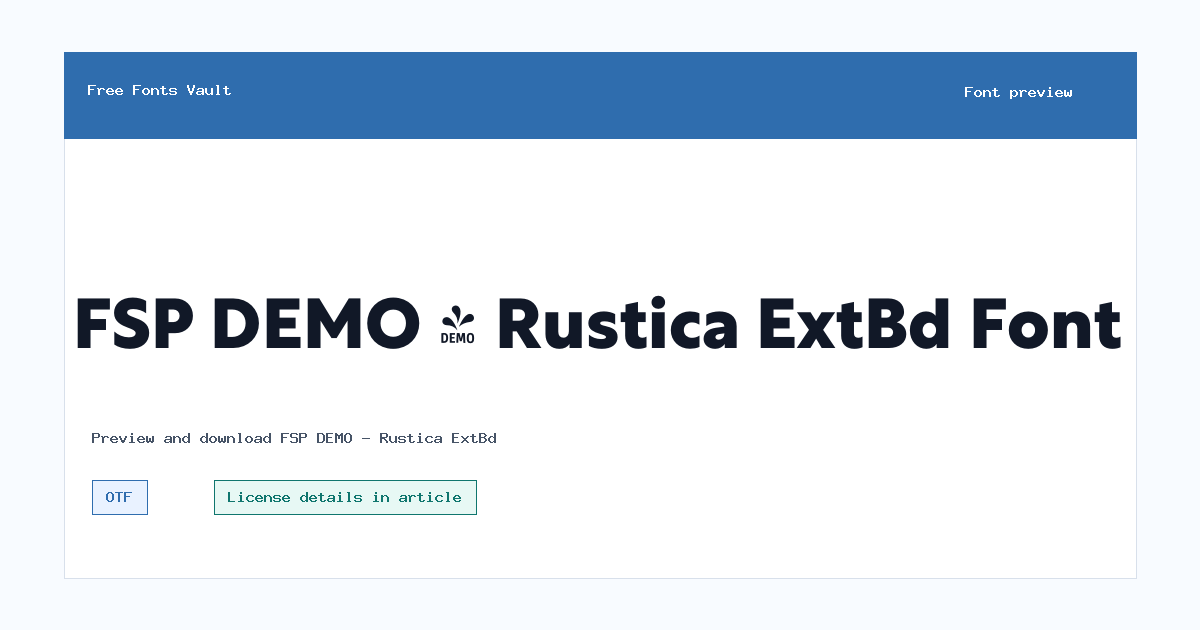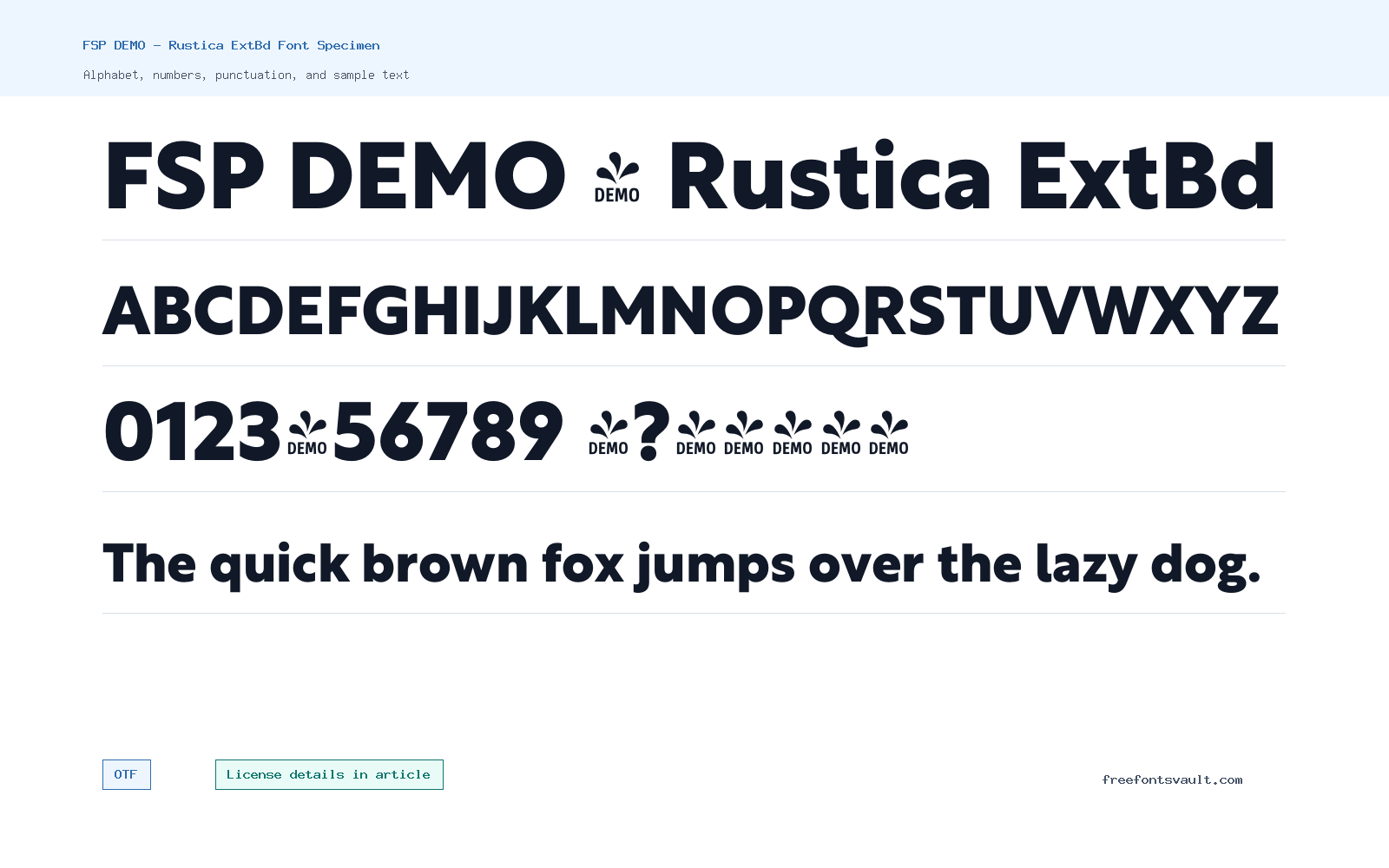
FSP DEMO - Rustica ExtBd
- Designer TipoType Team
- Foundry TipoType Team
FSP DEMO – Rustica ExtBd font.
Rustica ExtBd is an extra-bold OTF demo font credited to the TipoType Team. It is built for strong display testing: short headings, labels, and mockups where the type needs visible weight.
About Rustica ExtBd
The file name identifies this as a Fontspring DEMO cut of Rustica ExtraBold. With a 700 weight, it should be tested in compact settings where heavy lettering can stand out without overwhelming the design. Try it for poster titles, package labels, badges, cover text, social graphics, and brand direction mockups where a bold voice is useful.
Extra-bold fonts need room. Before downloading, preview short uppercase and mixed-case text, then check numbers, punctuation, and any long word you expect to use. If the letters feel crowded, increase spacing or reduce the number of words. Pair Rustica ExtBd with a calmer text font for captions and descriptions so the heavy display style remains clear.
Rustica ExtBd is also worth testing with very short calls to action, but avoid using the heavy weight for every line in a layout. One dominant line usually works better than several competing bold lines. Let the font create hierarchy, then use spacing and a simpler companion face to keep the page or poster organized.
- Extra-bold 700 weight for strong display use
- Credited to TipoType Team
- Bold poster titles, cover text, and campaign mockups
- Labels, badges, packaging drafts, and social graphics
- Designs where the headline needs strong weight
Rustica ExtBd is credited to the TipoType Team, with TipoType also listed as the foundry.
Start with one strong title line and test it at the final size. Heavy fonts can close up when reduced, so check small thumbnails, mobile layouts, and print labels before you depend on it for production artwork. When exporting artwork, check the result after compression because extra-bold shapes can blur together in small social thumbnails.
Who is credited for Rustica ExtBd?
The font is credited to the TipoType Team.
What is Rustica ExtBd best for?
It is best for short, strong display text such as posters, labels, badges, and headline mockups.